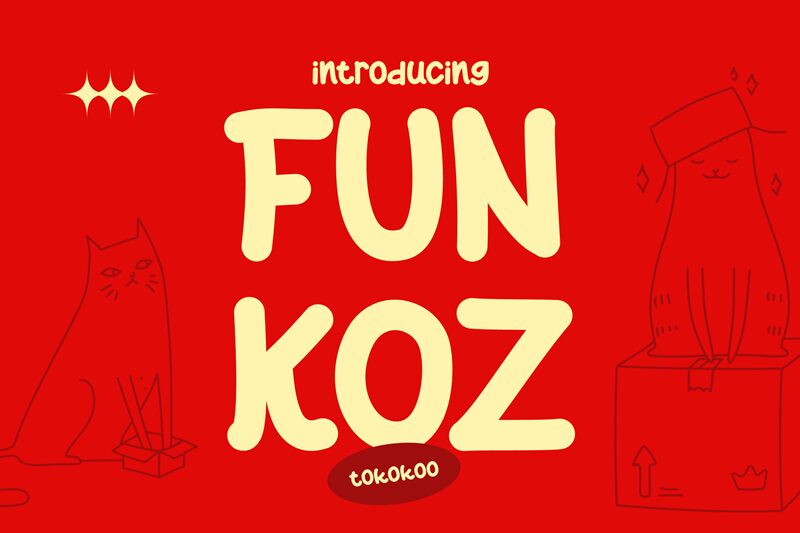
Funkoz font family by Tokokoo Studio is a charming free font with a cartoon style. Consisting of two font styles, it exhibits an informal design characterized by rounded letters and a friendly overall vibe. A casual attitude and inviting approach make the font minimal and modern, manifesting different visual features when viewed from afar and up close.
This presentation immediately calls out to children and youngsters in relation to book covers, storybooks, cartoon titles, movie poster titles, and video game titles. Funkoz can further be of use in packaging design, board game titles, cards, and many other applicable ideas.